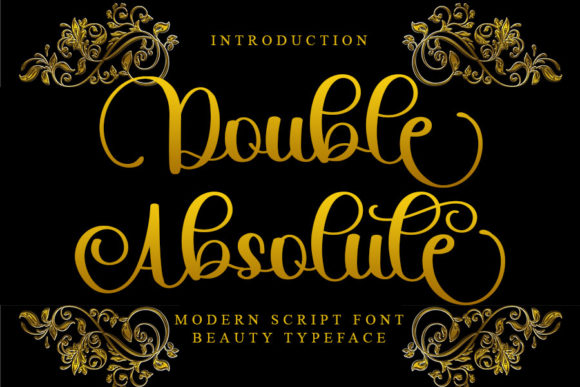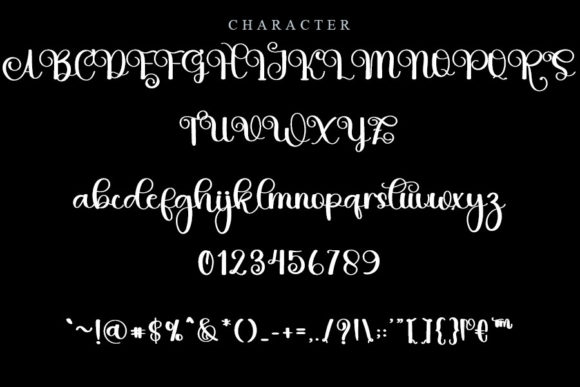
Double Absolute Font
About Double Absolute Font
Double Absolute is a dazzling and highly detailed handwritten font. It will add a luxury spark to any design project that you wish to create! This font is PUA encoded which means you can access all of the amazing glyphs and ligatures with ease!